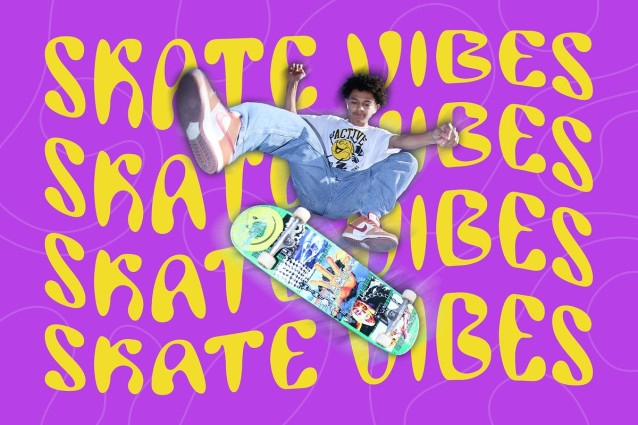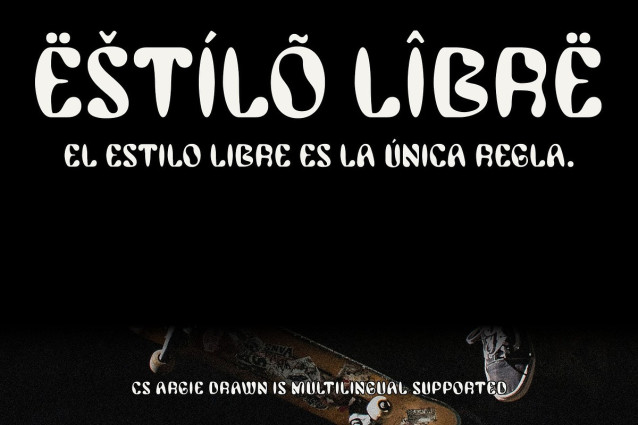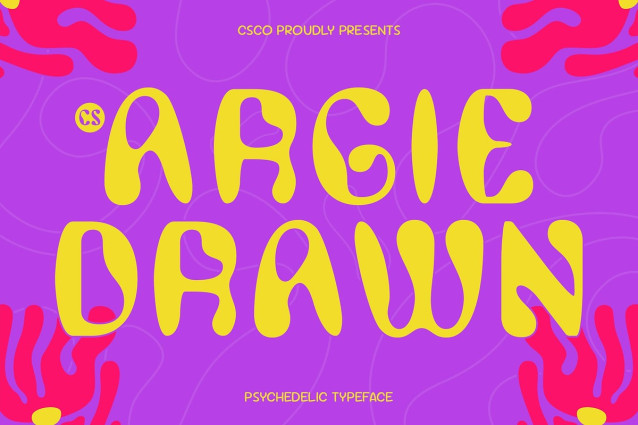
CS Argie Drawn Font
CS Argie Drawn Font is a striking modern display font that captures the essence of the psychedelic era with a bold, trippy style. Its funky, unconventional letterforms are packed with personality, creating a lively and unique vibe that instantly draws the eye. This font perfectly blends retro influences with contemporary creativity.
Handcrafted Drawn Effect for Dynamic Texture Featuring a distinctive drawn effect, this modern display font brings a handcrafted, artistic texture to every letter. This organic and imperfect touch adds depth and dimension, giving the font a vibrant, tactile quality that feels alive and personal. The interplay between the freeform strokes and bold shapes enhances its dynamic and expressive nature.
Expressive and Attention-Grabbing Design With its eccentric and energetic appearance, this psychedelic font is designed to command attention. It’s ideal for projects that require a bold visual statement, from music posters and album covers to festival branding and avant-garde artwork. Its eye-catching style lends itself well to any creative endeavor that thrives on individuality and visual impact.
Ideal for Uniqueness and Free-Spirited Energy This modern psychedelic font embodies the spirit of free expression and artistic freedom. It’s perfect for designers and brands looking to highlight creativity, uniqueness, and a sense of fun.